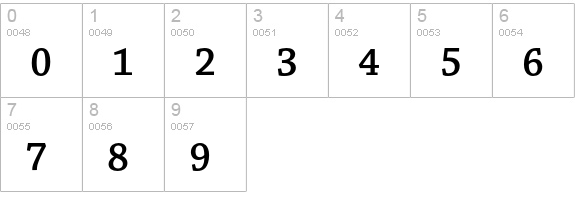
Chaparral Pro Semibold Caption Font Details
Chaparral Pro Semibold Caption is a sub-bold, structured variant in the Chaparral typeface family \xE2\x80\x94 well suited to sub-headlines and emphasised passages.
Chaparral Pro Semibold Caption font is a versatile and elegant typeface that strikes the perfect balance between sophistication and readability. Its refined design makes it an excellent choice for various projects, from editorial layouts to branding materials. The semi-bold weight adds a touch of boldness without compromising on clarity, making it ideal for captions and subheadings. This high-quality font is available for free download at FontsMarket.com, where you can easily access and use it for both personal and commercial purposes. With its timeless appeal and professional aesthetic, Chaparral Pro Semibold Caption font is sure to elevate your designs and leave a lasting impression on your audience. Upgrade your typography game with this exceptional typeface today!